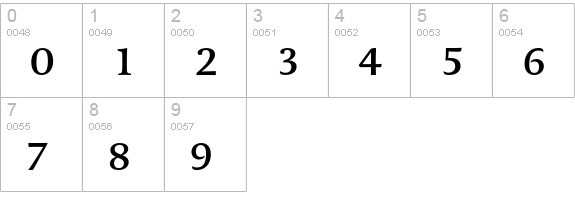
DTLDorianT-Medium is a balanced, medium-weight variant in the DTLDorianT typeface family \xE2\x80\x94 well suited to sub-headlines, navigation, and balanced editorial work.
Introducing DTLDorianT-Medium font, a versatile and modern typeface that exudes elegance and sophistication. With its sleek design and balanced proportions, this font is perfect for a wide range of design projects, from branding to editorial layouts. What sets DTLDorianT-Medium font apart is its unique combination of classic and contemporary elements, making it suitable for both traditional and modern designs. The clean lines and sharp edges of this font give it a sleek and professional look that is sure to make your project stand out. The best part? DTLDorianT-Medium font is available for free download at FontsMarket.com. So whether you're a professional designer looking for a new go-to typeface or a hobbyist looking to experiment with different fonts, this font is a must-have in your collection. Don't miss out on the opportunity to add DTLDorianT-Medium font to your design arsenal. Download it for free today and see the difference it can make in your next project!